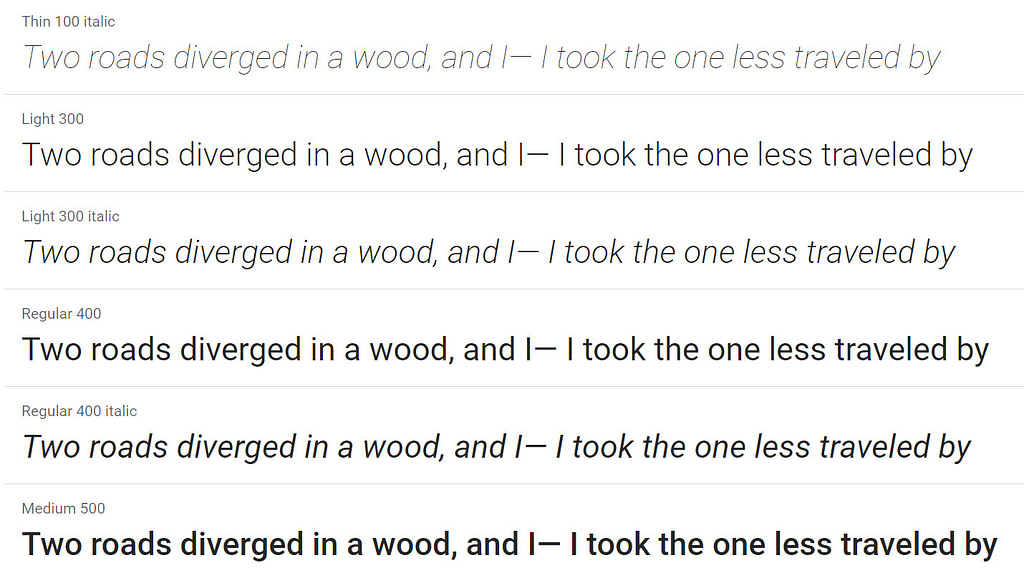
Best Font For Reading On Computer Screen . Which font did each person like the best? Check out the typetype list of the. By understanding the key factors that make a font easy to read, such as letterform clarity, spacing, size, contrast, and appropriateness for the context, we can ensure that readers engage effortlessly with the content. Discover the top fonts for optimal online reading experience in 2023. We have explored nine essential and best fonts specifically curated to optimize readability on digital screens. Explore the best fonts for reading: These fonts are designed for. Dive into font legibility, what makes a font stand out, and the best choices for web design. Reading speed in words per minute (wpm) comprehension. Top legible fonts for website text content include sans serif fonts like roboto, open sans, and arial. The three main metrics collected were: Verdana was designed to be readable at small sizes on a computer screen.
Which font did each person like the best? Reading speed in words per minute (wpm) comprehension. We have explored nine essential and best fonts specifically curated to optimize readability on digital screens. Discover the top fonts for optimal online reading experience in 2023. The three main metrics collected were: Check out the typetype list of the. Top legible fonts for website text content include sans serif fonts like roboto, open sans, and arial. These fonts are designed for. Explore the best fonts for reading: By understanding the key factors that make a font easy to read, such as letterform clarity, spacing, size, contrast, and appropriateness for the context, we can ensure that readers engage effortlessly with the content.
Best Font for Online Reading No Single Answer Readability Matters
Best Font For Reading On Computer Screen  These fonts are designed for. Dive into font legibility, what makes a font stand out, and the best choices for web design. Discover the top fonts for optimal online reading experience in 2023. By understanding the key factors that make a font easy to read, such as letterform clarity, spacing, size, contrast, and appropriateness for the context, we can ensure that readers engage effortlessly with the content. Which font did each person like the best? Top legible fonts for website text content include sans serif fonts like roboto, open sans, and arial. Reading speed in words per minute (wpm) comprehension. We have explored nine essential and best fonts specifically curated to optimize readability on digital screens. The three main metrics collected were: Check out the typetype list of the. Verdana was designed to be readable at small sizes on a computer screen. These fonts are designed for. Explore the best fonts for reading:
15+ Best Fonts for Reading in 2021 Free and Premium Fo MasterBundles Best Font For Reading On Computer Screen  Reading speed in words per minute (wpm) comprehension. Explore the best fonts for reading: These fonts are designed for. Discover the top fonts for optimal online reading experience in 2023. Verdana was designed to be readable at small sizes on a computer screen. Top legible fonts for website text content include sans serif fonts like roboto, open sans, and arial.. Best Font For Reading On Computer Screen.
15+ Best Fonts for Reading in 2021 Free and Premium Fo MasterBundles Best Font For Reading On Computer Screen  Discover the top fonts for optimal online reading experience in 2023. The three main metrics collected were: Top legible fonts for website text content include sans serif fonts like roboto, open sans, and arial. By understanding the key factors that make a font easy to read, such as letterform clarity, spacing, size, contrast, and appropriateness for the context, we can. Best Font For Reading On Computer Screen.
15+ Best Fonts for Reading in 2021 Free and Premium Fonts Best Font For Reading On Computer Screen  Which font did each person like the best? Top legible fonts for website text content include sans serif fonts like roboto, open sans, and arial. These fonts are designed for. Check out the typetype list of the. Verdana was designed to be readable at small sizes on a computer screen. Reading speed in words per minute (wpm) comprehension. We have. Best Font For Reading On Computer Screen.
Readable & Stylish The 15 Best Fonts for Reading Best Font For Reading On Computer Screen  By understanding the key factors that make a font easy to read, such as letterform clarity, spacing, size, contrast, and appropriateness for the context, we can ensure that readers engage effortlessly with the content. Which font did each person like the best? The three main metrics collected were: Dive into font legibility, what makes a font stand out, and the. Best Font For Reading On Computer Screen.
What Makes an Accessible, Easy to Read Font GatherContent Best Font For Reading On Computer Screen  Which font did each person like the best? Discover the top fonts for optimal online reading experience in 2023. Dive into font legibility, what makes a font stand out, and the best choices for web design. Explore the best fonts for reading: The three main metrics collected were: We have explored nine essential and best fonts specifically curated to optimize. Best Font For Reading On Computer Screen.
What are the easiest fonts to read? Best Font For Reading On Computer Screen  The three main metrics collected were: These fonts are designed for. Discover the top fonts for optimal online reading experience in 2023. Verdana was designed to be readable at small sizes on a computer screen. Check out the typetype list of the. Dive into font legibility, what makes a font stand out, and the best choices for web design. By. Best Font For Reading On Computer Screen.
What are the easiest fonts to read? Best Font For Reading On Computer Screen  Verdana was designed to be readable at small sizes on a computer screen. Top legible fonts for website text content include sans serif fonts like roboto, open sans, and arial. Discover the top fonts for optimal online reading experience in 2023. These fonts are designed for. We have explored nine essential and best fonts specifically curated to optimize readability on. Best Font For Reading On Computer Screen.
15+ Best Fonts for Reading in 2021 Free and Premium Fonts Best Font For Reading On Computer Screen  We have explored nine essential and best fonts specifically curated to optimize readability on digital screens. Check out the typetype list of the. Dive into font legibility, what makes a font stand out, and the best choices for web design. Explore the best fonts for reading: Which font did each person like the best? The three main metrics collected were:. Best Font For Reading On Computer Screen.